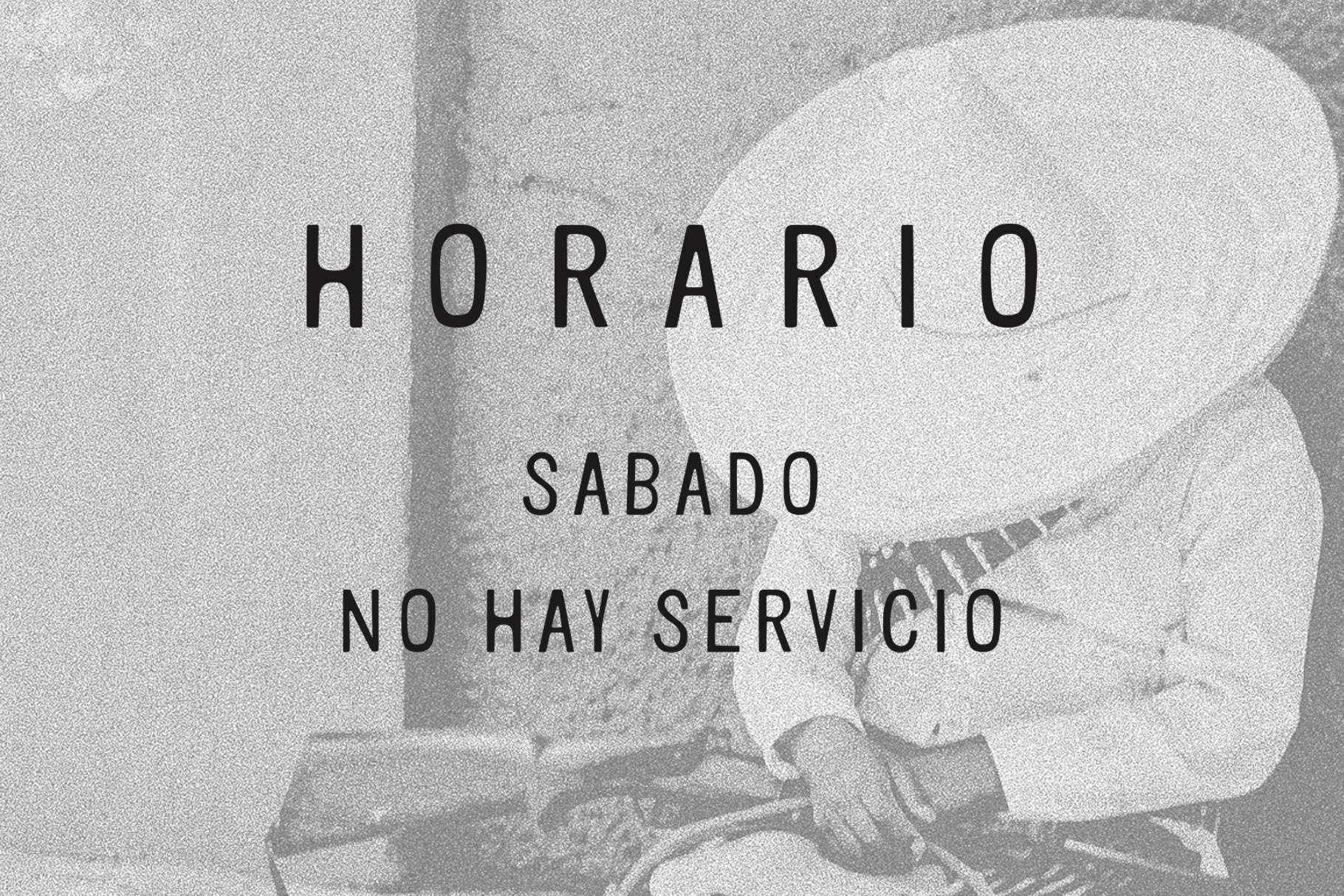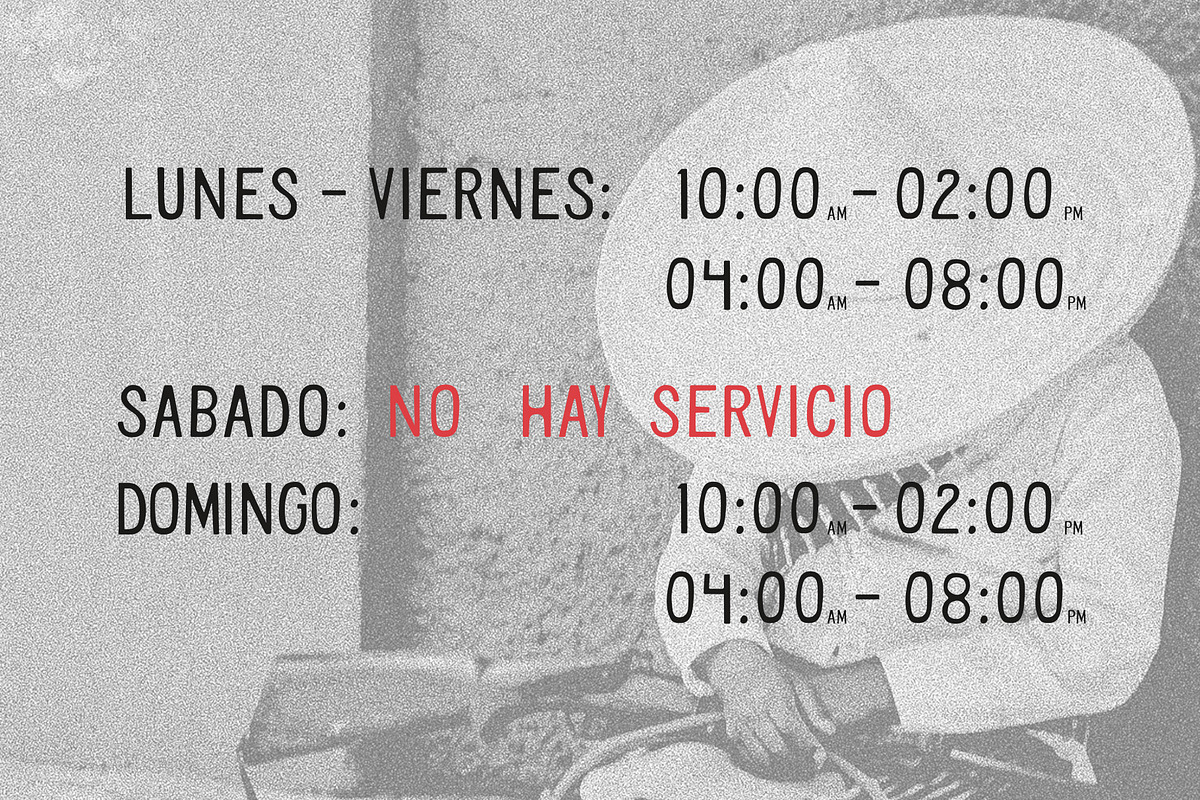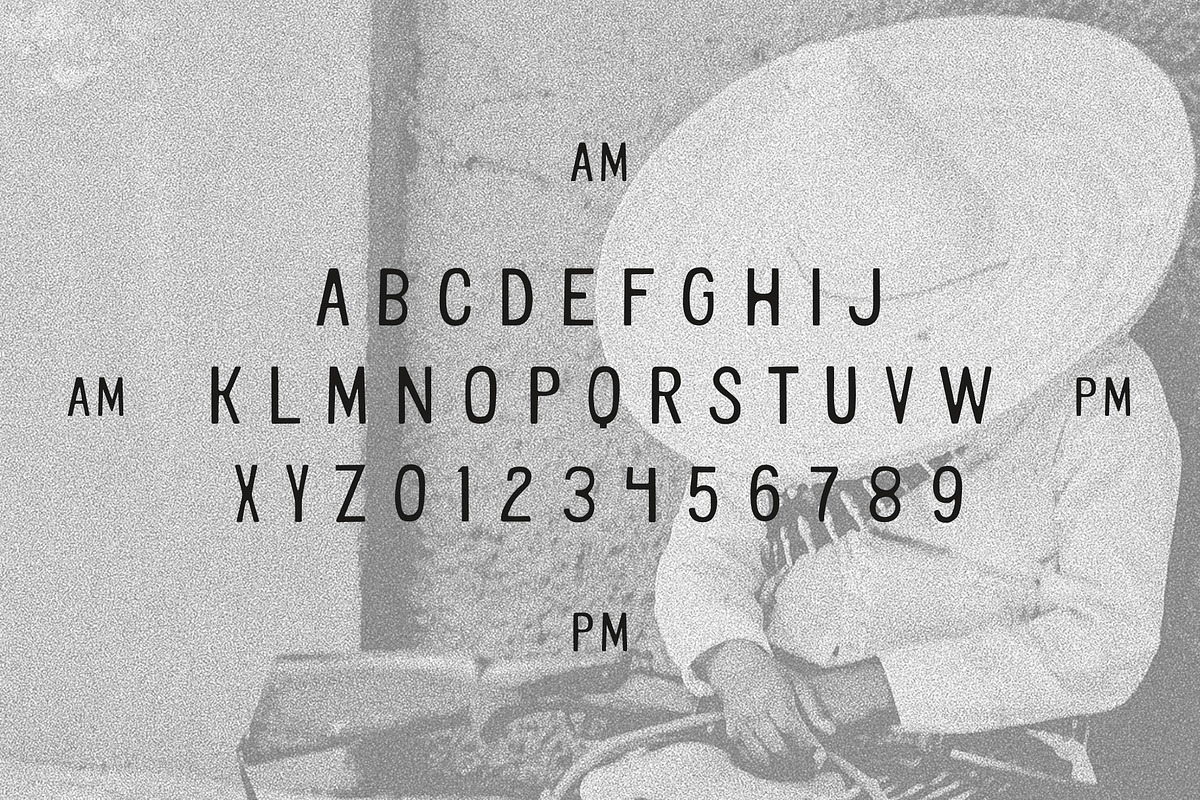
HORARIO Typeface
Horario is inspired by a hand painted sign discovered in a small village about an hour and a half outside Oaxaca, Mexico. The original lettering was painted directly onto a wooden storefront, simply listing the opening hours of a local shop.
This everyday piece of vernacular signage became the starting point for the typeface. The letterforms were carefully redrawn and refined into a modern font designed for contemporary use while preserving the charm and character of the original hand painted lettering.
Horario is a fully functional all caps font including numbers and punctuation. The typeface works perfectly for branding, packaging, posters, editorial design, logos and signage, giving projects an authentic vintage feel while remaining clean and versatile for modern design work.